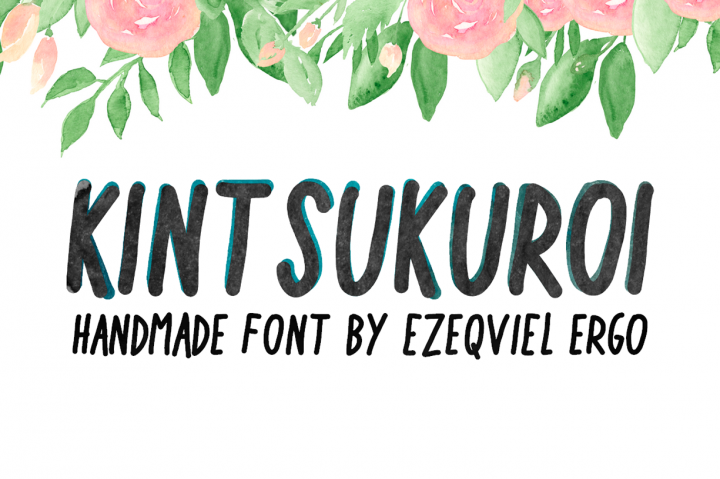
Free Font Kintsukuroi Typeface
Download and enjoy this free font kintsukuroi typeface. Cool typeface to showcase your designs in a modern way. Go give some love to The Hungry JPEG for creating this top-notch free font. Amaze your fellow designers and create stunning designs with this cool font.